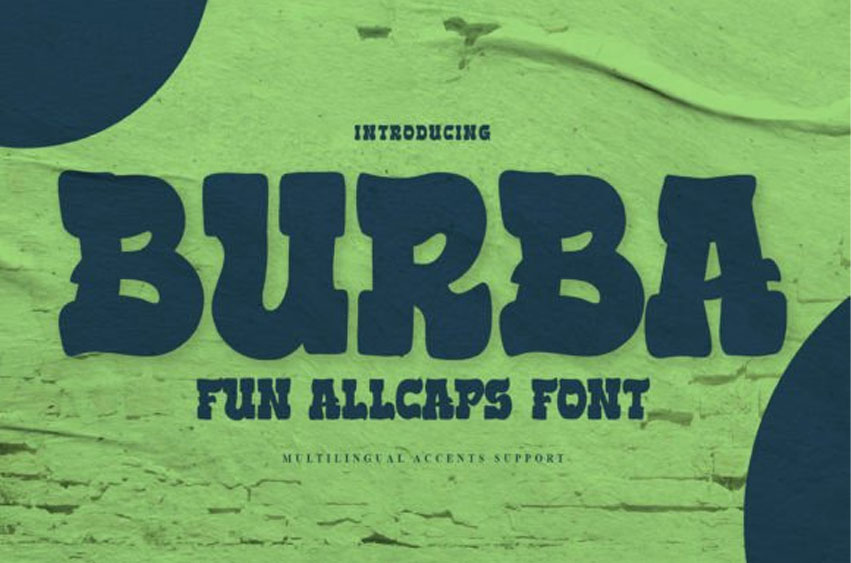
Burba Font
Burba Font is an all-caps serif font with textured bold letters and a natural style with dramatic movement.
This font is great for your next creative projects such as logos, printed quotes, invitations, cards, product packaging, headers, photography, stationery, wedding designs, labels, product packaging, special events, or anything that needs bold typography.